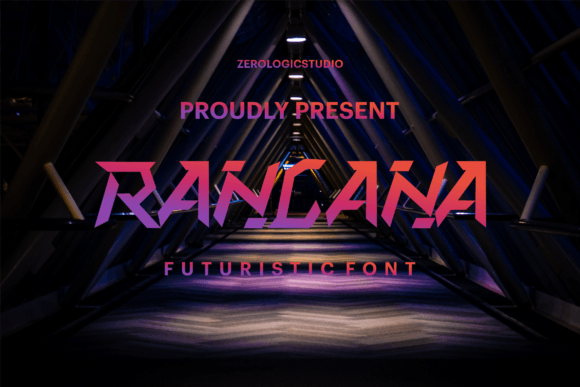
Behold, Rancana Font – A Revolutionary Display Font that will Ignite Your Creativity
In the realm of design, let your imagination be the fire and Rancana be the fuel. This exceptional display font will ignite your creativity, setting your designs ablaze with its bold and captivating presence. Rancana is not just a font; it's an artistic expression that speaks volumes, transforming your creations into masterpieces.
Immerse yourself in the world of Rancana and discover a treasure trove of artistic possibilities. Created with an original touch, this font family is crafted to meet your every design need. Engage your audience with the complete repertoire of uppercase and lowercase characters, numerals, and symbols, each meticulously designed to deliver a striking impact.
The strength and sharpness of Rancana's lines command attention, making it the perfect choice for titles, posters, magazines, brochures, packaging, websites, and more. Unleash your creative potential and explore a world of design possibilities that will leave onlookers in awe.
Rancana's versatility is as boundless as your imagination. Its robust structure and striking details make it suitable for a myriad of design projects. Whether you're working on a bold headline that demands attention or an elegant paragraph that exudes sophistication, Rancana will elevate your designs to new heights.